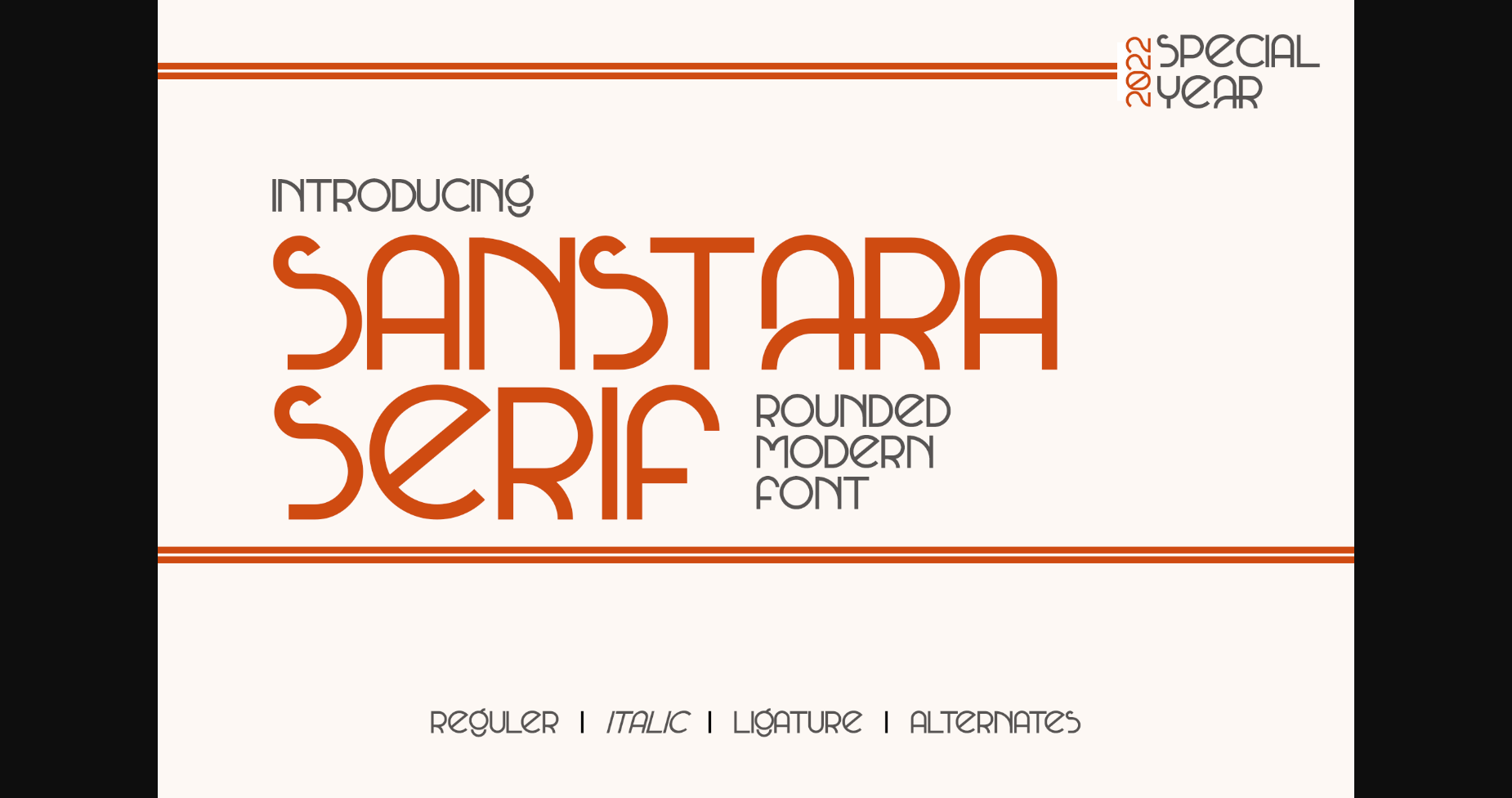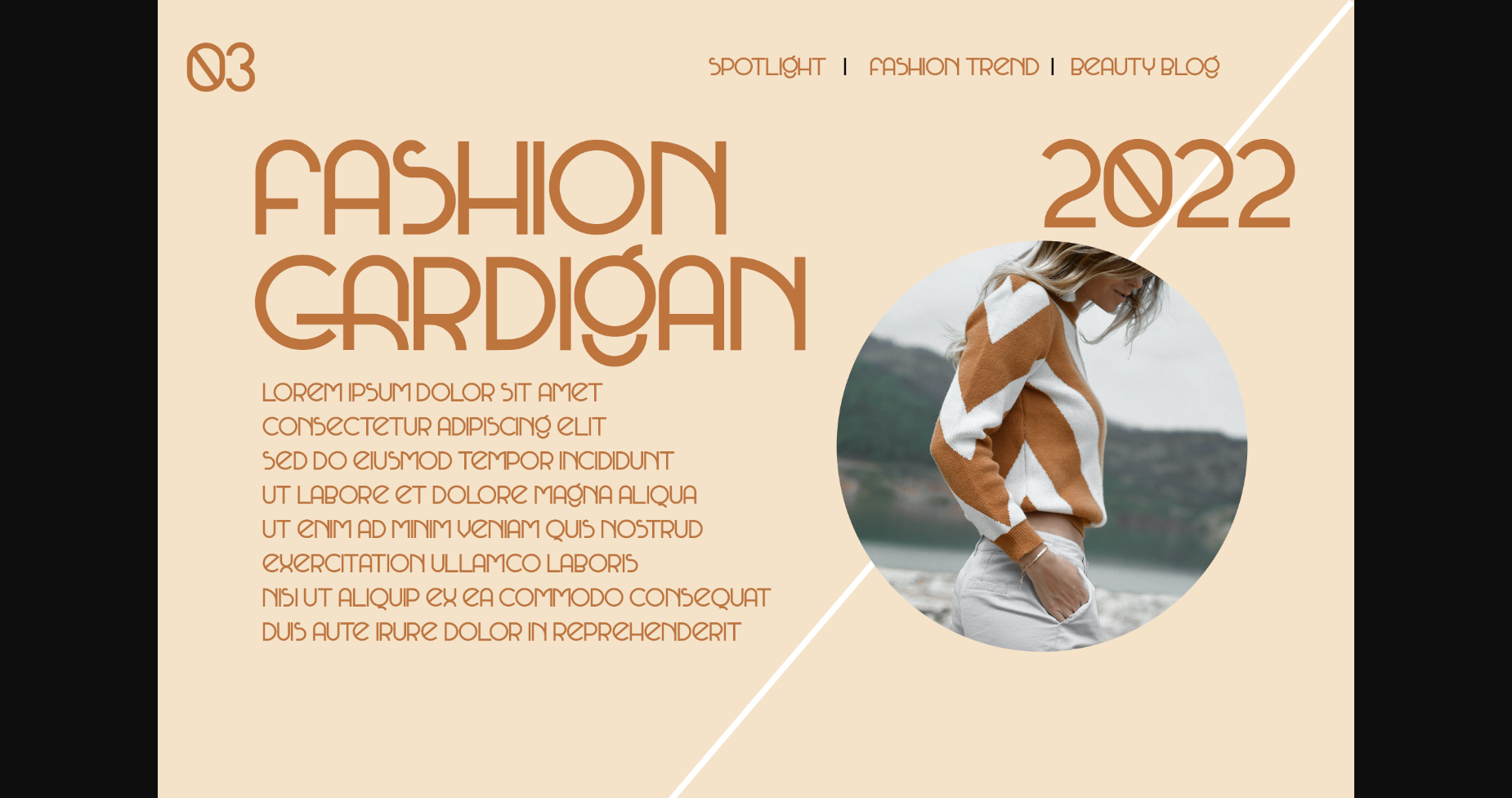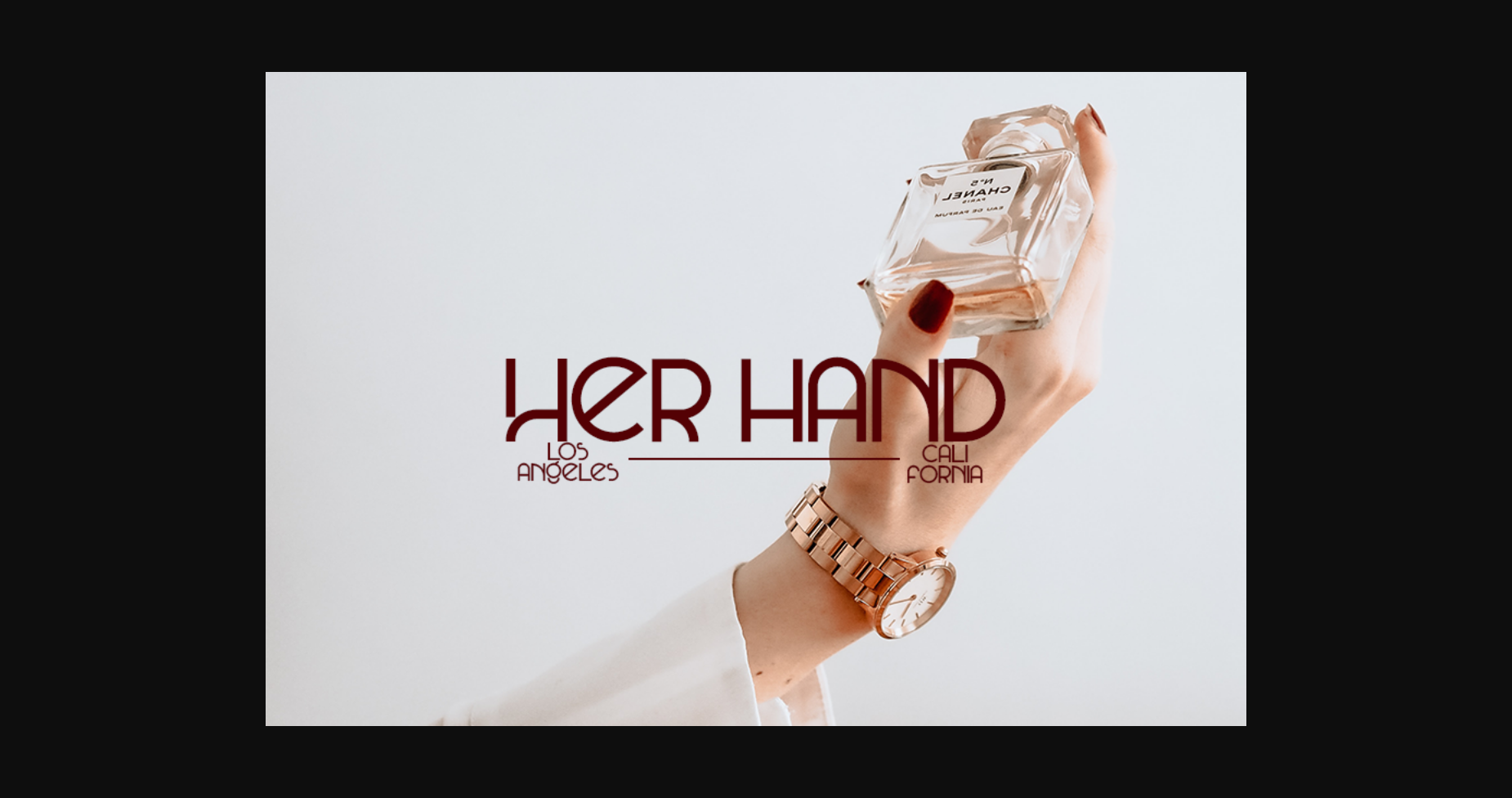
About Sanstara Font
Sanstara is a clean and rounded, modern all caps sans serif font. This font is PUA encoded which means you can access all of the glyphs and swashes with ease! Add it confidently to your favorite creations and let yourself be amazed by the outcome generated.